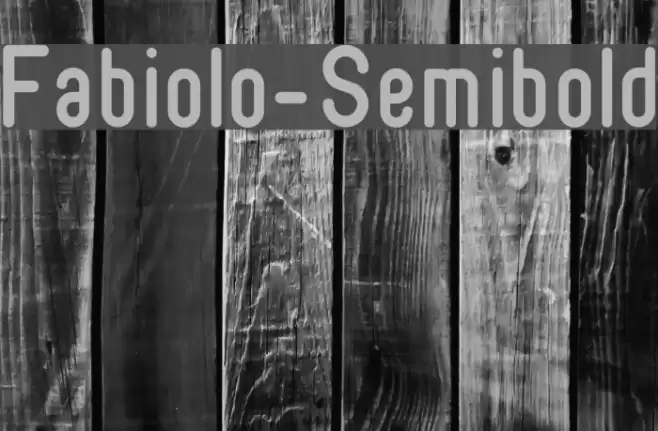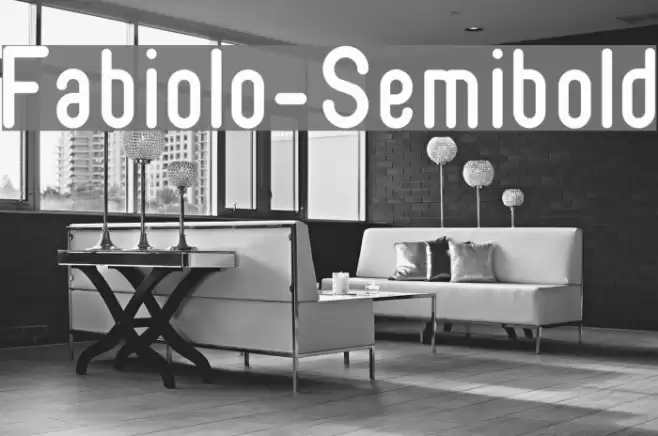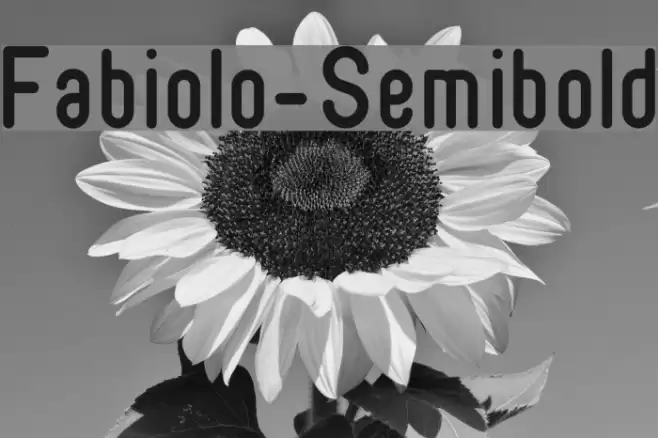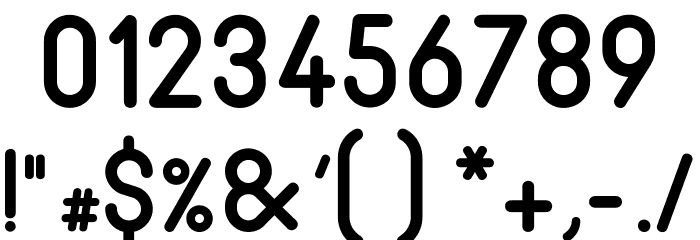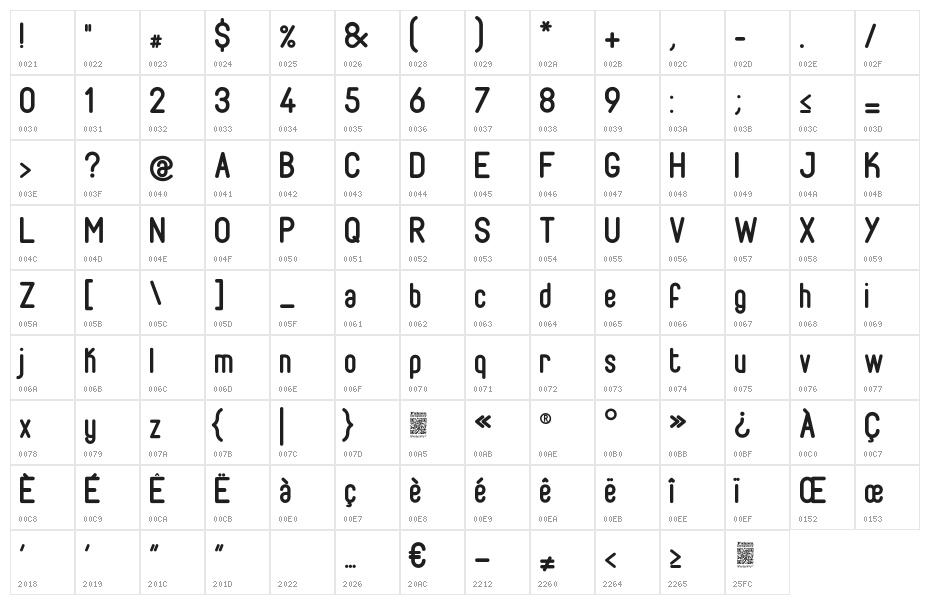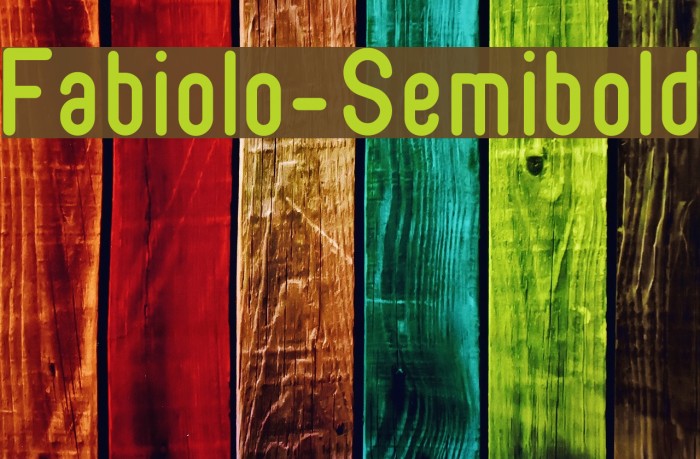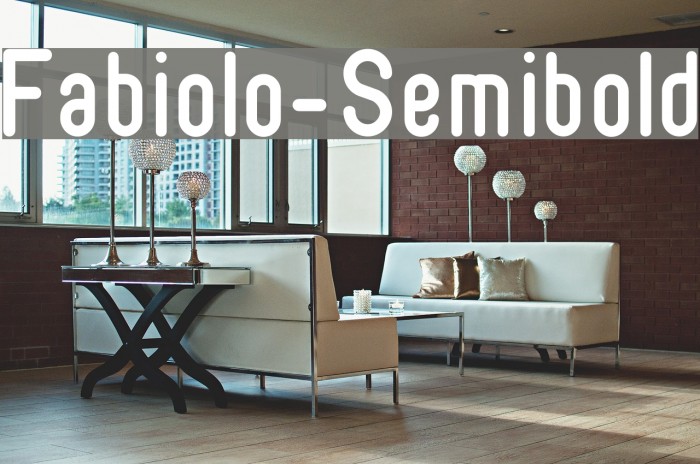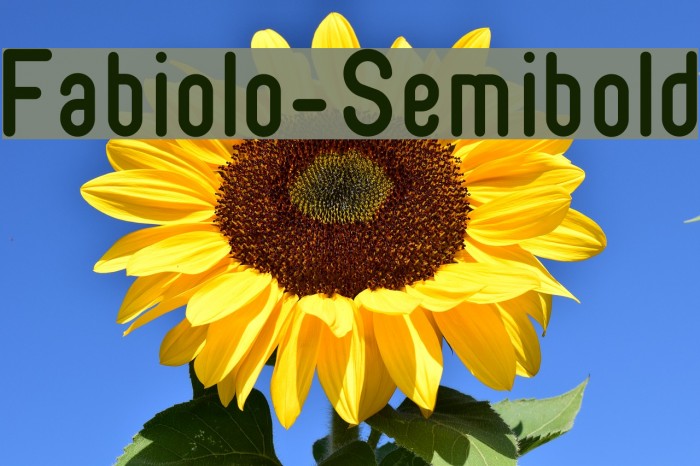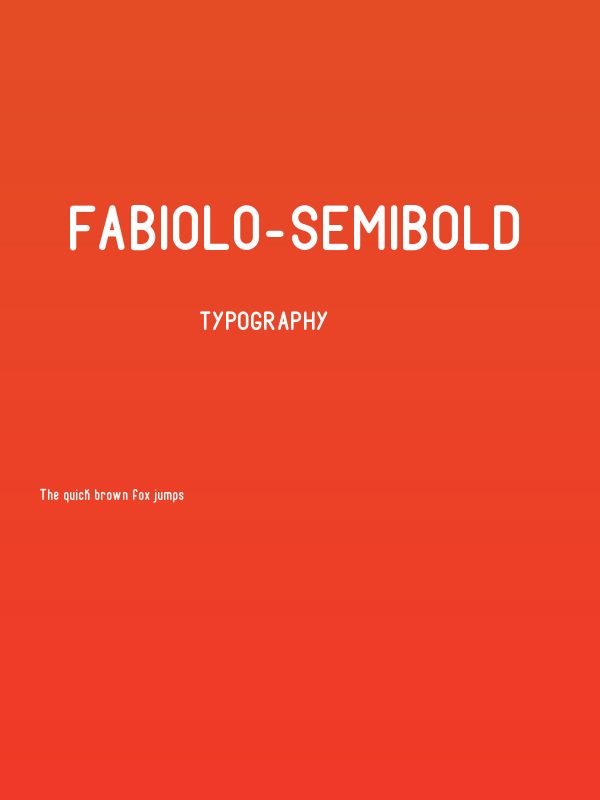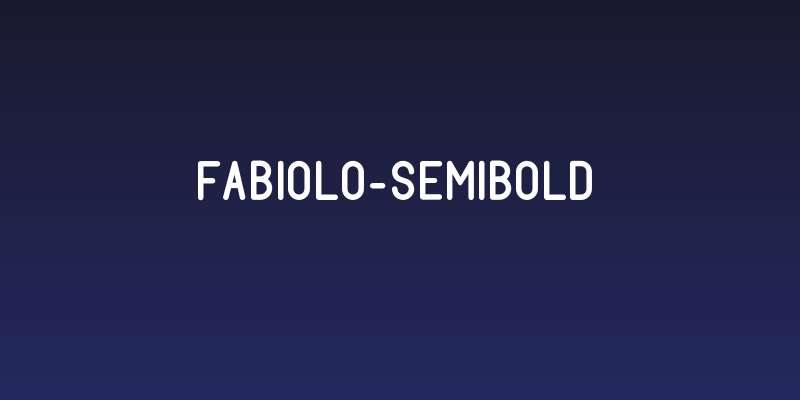
Fabiolo-Semibold Font
Fabiolo-Semibold Description
This font features a modern and clean design with rounded edges, giving it a friendly and approachable appearance. The characters are evenly spaced, providing a balanced and harmonious look. The uppercase letters are bold and prominent, while the lowercase letters maintain a consistent style with slightly softer curves. The numerals are clear and easy to read, matching the overall aesthetic. Special characters are well-integrated, maintaining the font's cohesive design. This font is versatile, suitable for various applications where a contemporary and inviting feel is desired.
A modern, rounded font with a friendly and approachable design from Uncategorized fonts.
- Proposed Projects: Ideal for branding, advertising, packaging, and digital media where a modern and friendly tone is needed.
- Use Case: Headlines, Logos, Branding